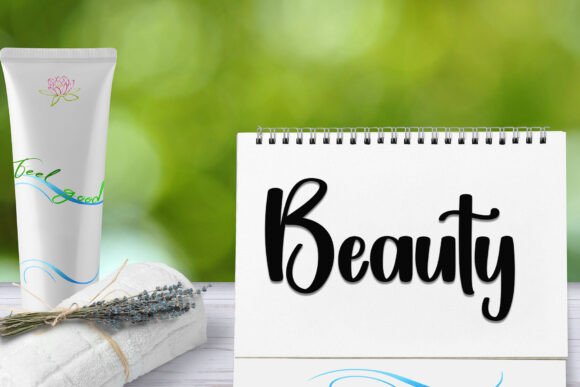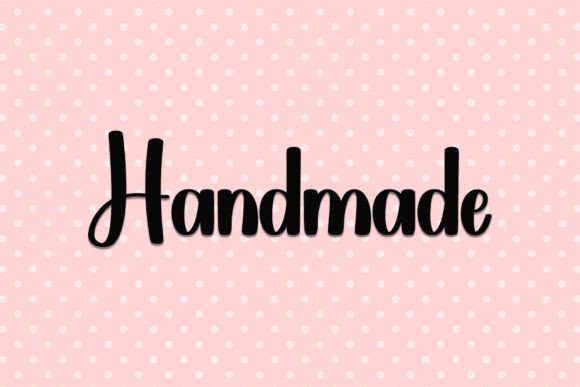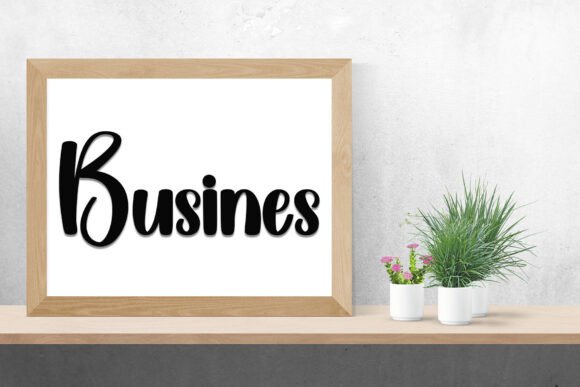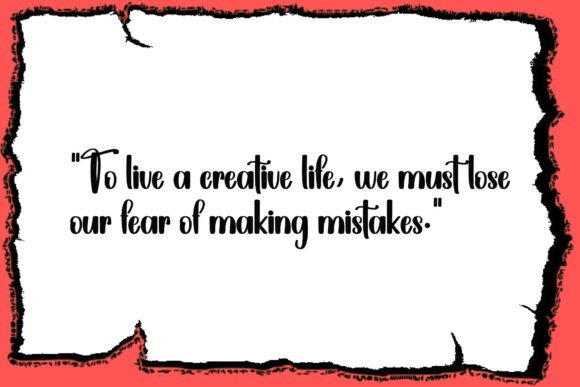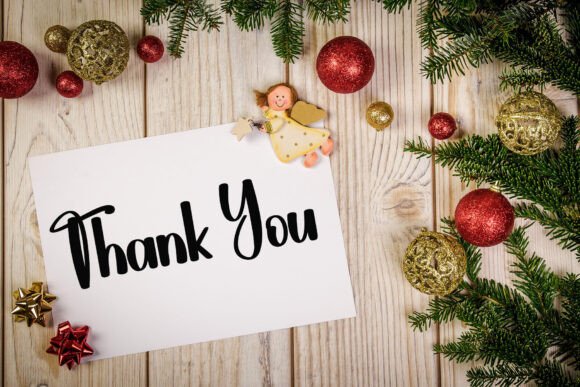
Introducing Handprint Font: Elevate Your Designs with Elegance and Class
In the world of typography, few fonts manage to capture the essence of both modernity and timeless elegance. Handprint font is one such exceptional typeface that brings a contemporary atmosphere with impeccable form, inspired by the classic calligraphy of yesteryears. This trendy handwritten font is designed to add a touch of sophistication and class to any design project, making it a must-have for designers and crafters alike.
The Inspiration Behind Handprint Font
Handprint font draws its inspiration from the traditional calligraphy that has been a cornerstone of elegant writing for centuries. The creators of Handprint have meticulously studied the fluid lines, the precise letterforms, and the overall aesthetic appeal of classic calligraphy. They have then skillfully translated these elements into a modern font that resonates with today’s design sensibilities. The result is a font that feels both nostalgic and refreshingly contemporary.
Key Features of Handprint Font
- Contemporary Atmosphere: Despite being inspired by classic calligraphy, Handprint boasts a modern look and feel. Its clean lines and well-defined letterforms make it perfect for designs that require a touch of modern elegance.
- Impeccable Form: Each letter in the Handprint font has been carefully crafted to ensure it stands out with clarity and precision. This attention to detail ensures that your designs look polished and professional.
- Elegance and Class: The true beauty of Handprint lies in its ability to add an air of sophistication to any design. Whether you’re working on a branding project, a wedding invitation, or a packaging design, Handprint can elevate your work to new heights of elegance.
- Versatility: Handprint is not just limited to headings or titles; it’s versatile enough to be used in body text as well. Its readability ensures that your message is conveyed clearly, without compromising on style.
Use Cases for Handprint Font
Handprint font’s versatility and elegant design make it suitable for a wide range of projects. Here are some use cases where Handprint truly shines:
- Branding and Logotypes: Create a lasting impression with a logo or brand name that exudes elegance and professionalism.
- Wedding and Event Invitations: Add a touch of class and sophistication to your wedding or event invitations, setting the tone for a memorable occasion.
- Packaging Design: Elevate your product packaging with a font that communicates luxury and quality.
- Marketing and Advertising Materials: Stand out in a crowded market with promotional materials that boast a modern yet elegant aesthetic.
- Web Design: Enhance the visual appeal of your website with a font that offers both readability and style.
Tips for Using Handprint Font Effectively
To make the most of Handprint font, consider the following tips:
- Pair with Complementary Fonts: While Handprint is elegant on its own, pairing it with a complementary font can enhance its beauty and create visual interest.
- Adjust Letter Spacing: Experiment with letter spacing to find the perfect balance that enhances readability and aesthetic appeal.
- Use it for Headers and Subheadings: While Handprint can be used for body text, it’s particularly effective for headers and subheadings where you want to make a statement.
Handprint font is more than just a typeface; it’s a design element that can transform your projects with its elegance and class. Inspired by timeless classic calligraphy but infused with a contemporary atmosphere, Handprint is the perfect choice for designers and crafters looking to add a touch of sophistication to their work. Whether you’re creating branding materials, event invitations, or web designs, Handprint font is sure to elevate your designs to new heights of style and professionalism.